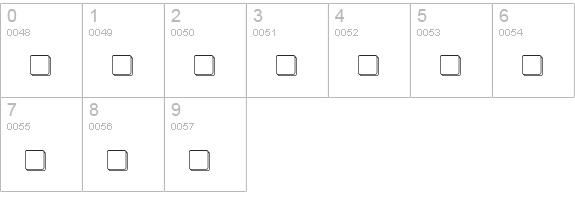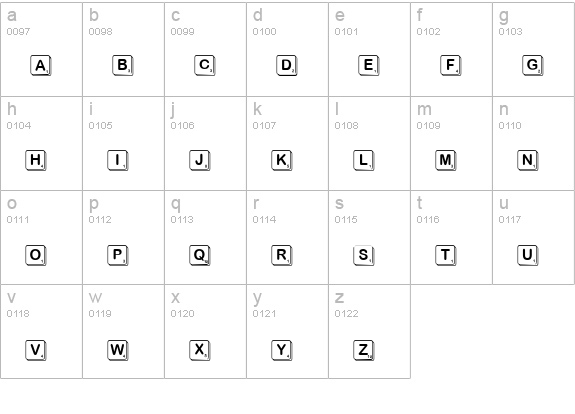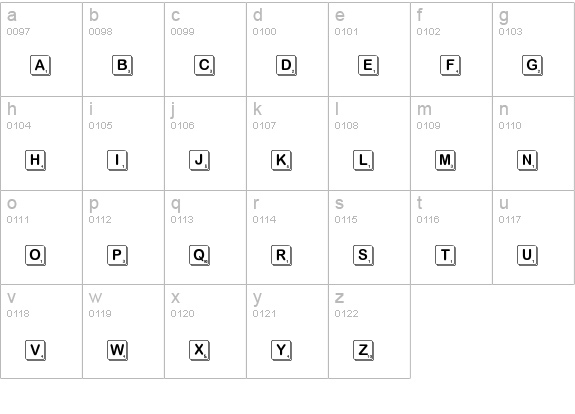
ScrambleMixed font is a captivating and unique typeface that brings a touch of excitement to any design project. With its playful and jumbled letterforms, this font is sure to catch the attention of viewers and make a lasting impression. The ScrambleMixed font is perfect for those looking to add a dash of creativity and energy to their designs. Whether you're working on a logo, poster, or website, this font will bring a dynamic and eye-catching element to your work. One of the best things about the ScrambleMixed font is that it is freely available to download at FontsMarket.com. This means that you can easily access and use this font in your projects without any additional cost. It's a fantastic opportunity to enhance your designs with a one-of-a-kind font, all without breaking the bank. The ScrambleMixed font is not only visually appealing, but it also offers versatility. Its mixed and scrambled letterforms can be used to convey a sense of fun and playfulness, or to create an edgy and unconventional look. The possibilities are endless with this font, allowing you to experiment and create designs that truly stand out. Don't miss out on the chance to add the ScrambleMixed font to your font library. Download it for free at FontsMarket.com and let your creativity run wild.